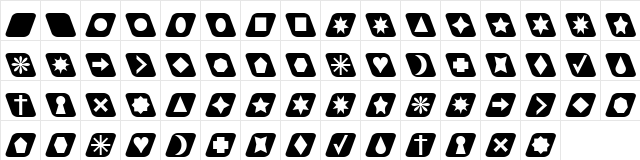
Cut Outs for 3D FX 2 Normal
Design Context for Cut Outs for 3D FX 2 Typeface
Cut Outs for 3D FX 2 is a composed and adaptable typeface that performs quietly and consistently across a wide range of design contexts.